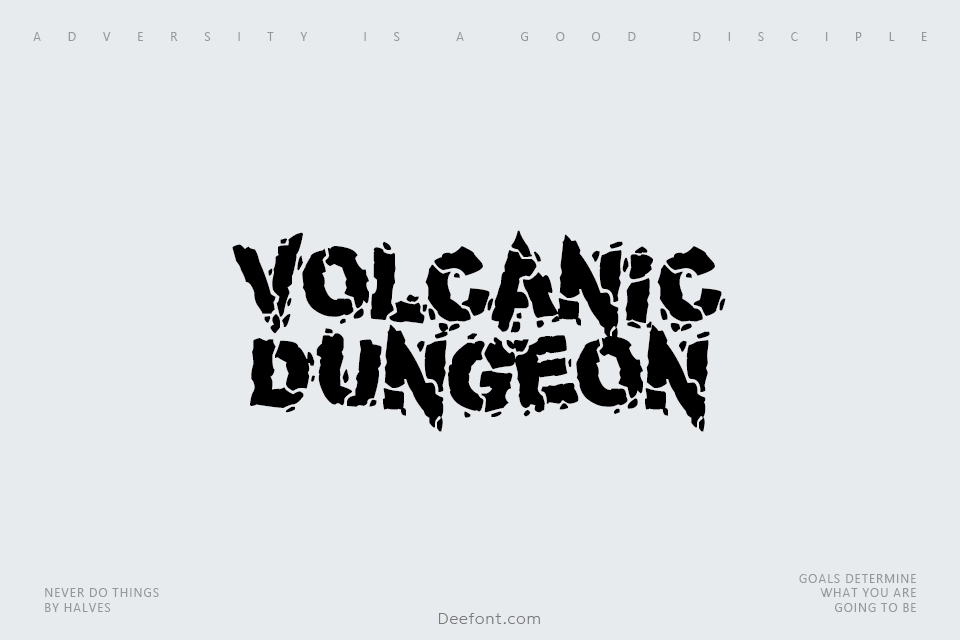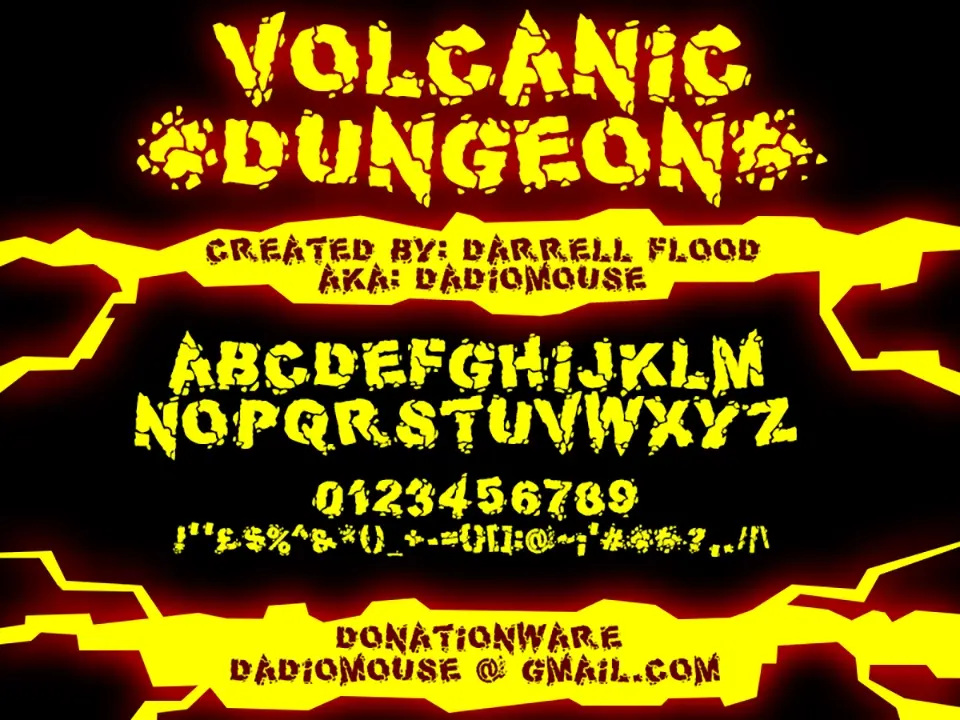
Volcanic Dungeon Font
Volcanic Dungeon is a bold and dramatic display font featuring a rugged, distressed aesthetic reminiscent of volcanic rock formations. With its heavily textured characters and irregular edges, this decorative typeface conveys intensity and visual impact. Perfect for video game titles, adventure-themed branding, movie posters, and promotional materials that demand attention and convey a sense of drama or danger. The font includes 91 carefully crafted characters maintaining consistent style across uppercase, lowercase letters, and special characters.